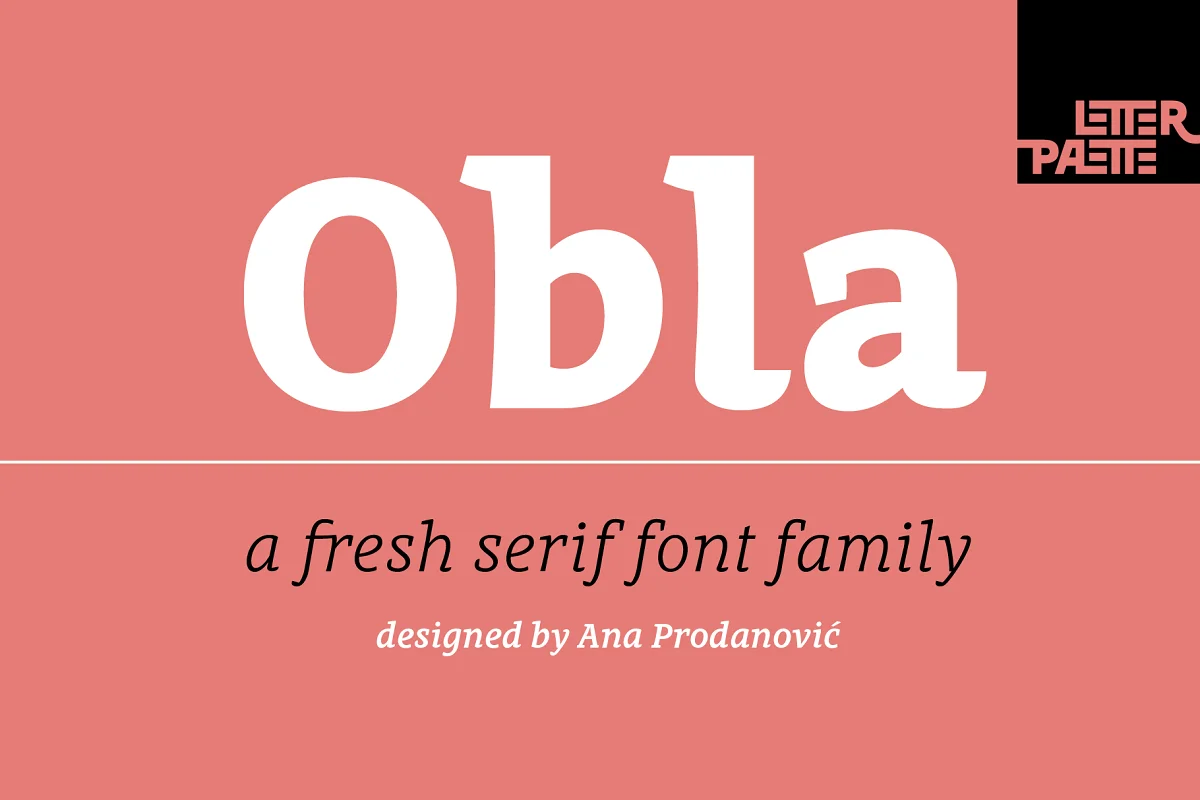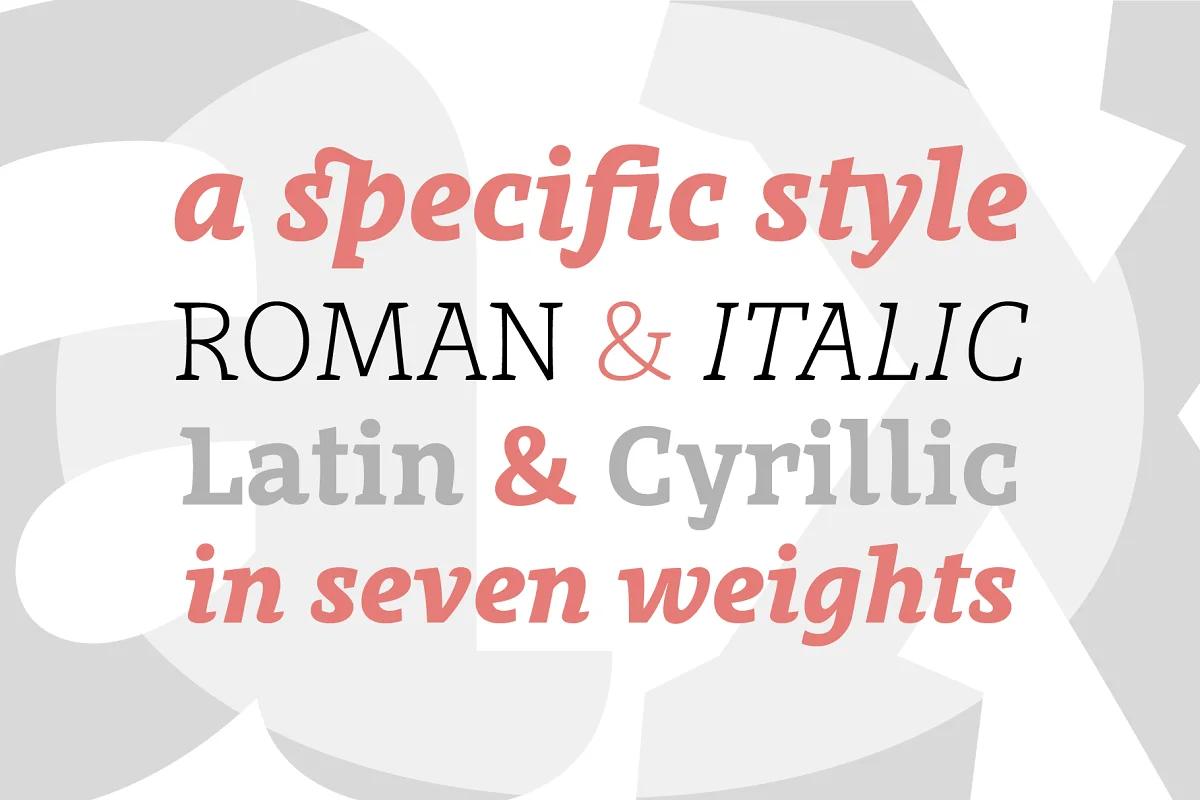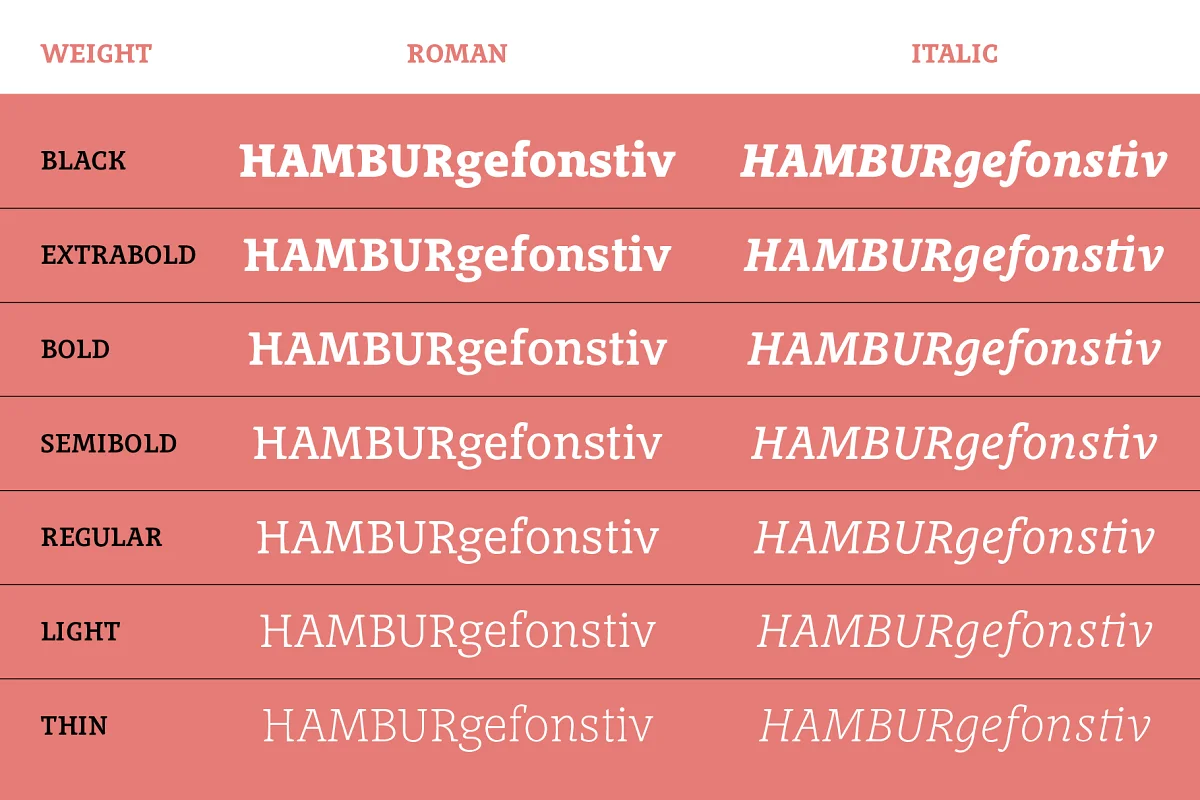
About the Obla Font
The Obla font family is a modern serif typeface accompanied by appropriate italic in seven weights. Sketches of letters were drawn manually, using thick markers for creating shapes and pencils for finishing details.
Calligraphic origin of shapes is revealed beneath strained curves drawn on computer. All of the weights were carefully adjusted to each other.
Obla is equipped with some basic OpenType features and supports Cyrillic and Latin script. Using Obla in small sizes is very convenient, because of its large x-height, and Obla is a very readable typeface.
It seduces the reader with its vivacious character. The typeface is also suitable for usage in large sizes. The best choice for headlines is using the heaviest (Black) and the lightest (Thin) weight.
Obla is an awarded typeface. It got Special Mention in the Cyrillic Typefaces category in Granshan 2016 competition and it was chosen as a Merit Winner in Print’s Typography and Lettering Awards competition. At that time, before publishing, the typeface was named Petra.